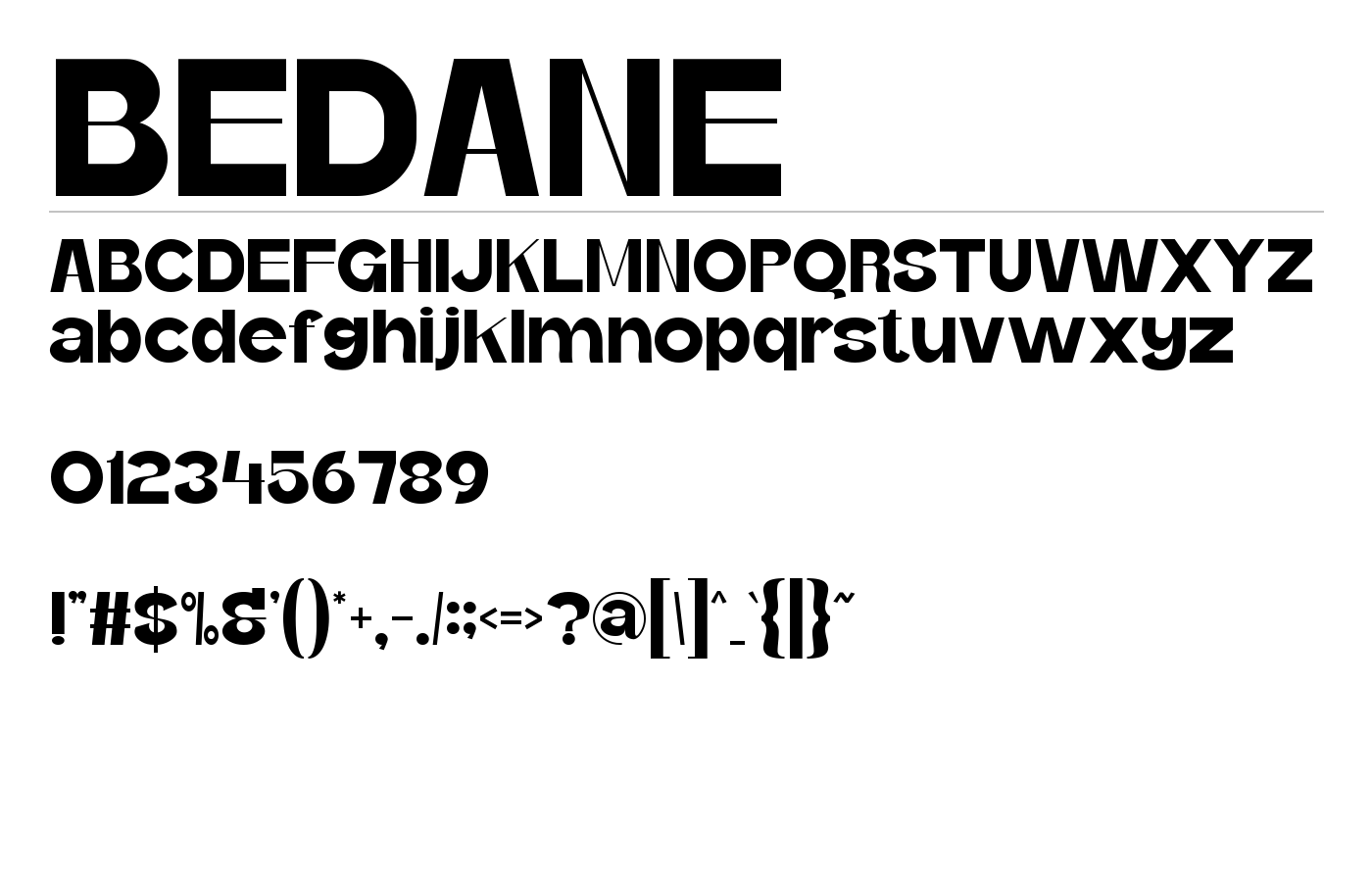
Bedane is a bold, geometric sans serif font with a strong presence and a modern, slightly condensed feel. Its sharp, clean lines and consistent stroke weight give it a sturdy yet approachable personality, making it ideal for headlines, branding, and editorial use where clarity and impact are key. This font works well for contemporary designs that want to communicate confidence and style with a touch of minimalist sophistication.
BEDANE Font
About BEDANE Font
| Designer | Maikohatta |